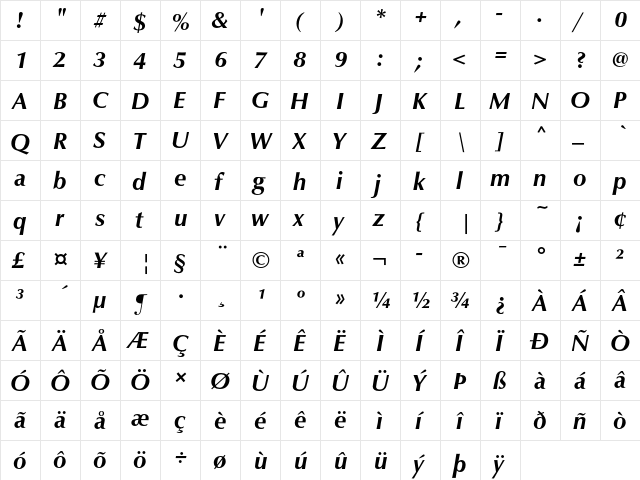
Classico URW Bold Italic Font Preview
Design Context for Classico URW Typeface
Classico URW has the warm character of retro typography — evoking diners, record sleeves, and the golden age of print advertising. Its italic angle brings a sense of urgency and motion to the letterforms. The heavy weight commands attention and anchors typographic hierarchies.
Font Pairing: Combine Classico URW with a simple slab or neutral sans — period-accurate companions reinforce the vintage feel without competing for attention.
Pro Tip: Use Classico URW for headlines and pull quotes rather than body copy — its personality is best appreciated in short, focused bursts.